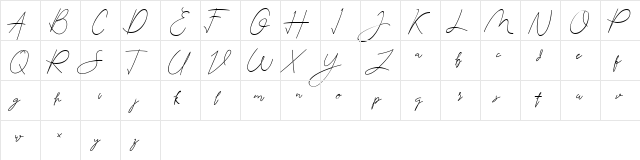
Sweghand Reguler
Design Context for Sweghand Typeface
Sweghand brings a calligraphic fluidity to the page — its connecting strokes and expressive curves give it an unmistakably human quality.
Font Pairing: Combine Sweghand with a simple geometric sans for maximum contrast — the tension between flowing curves and clean structure is a classic typographic pairing.
Pro Tip: Pair Sweghand with a clean sans-serif for supporting text. The contrast between fluid script and geometric structure creates an elegant typographic hierarchy.